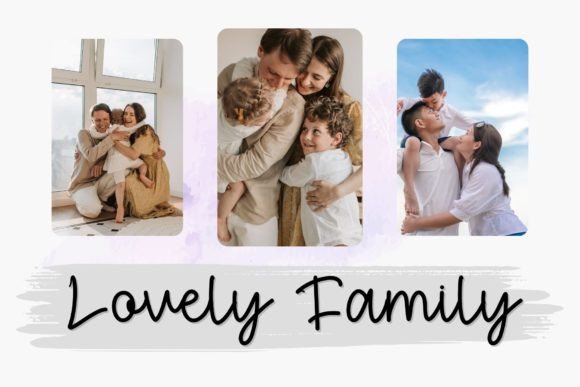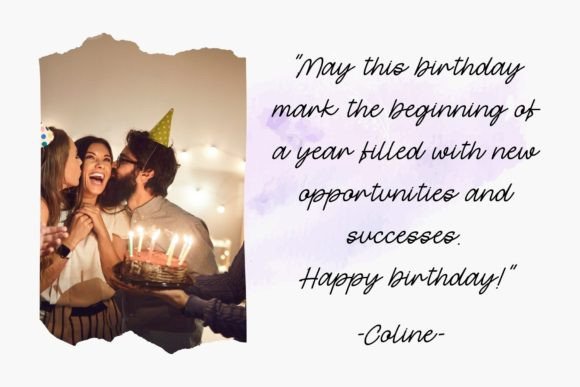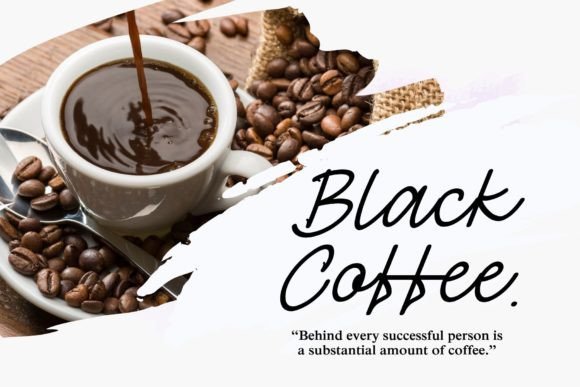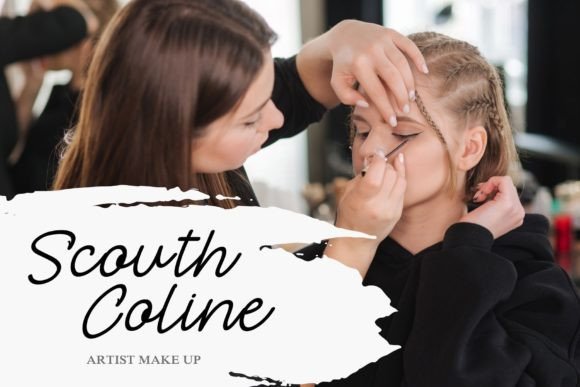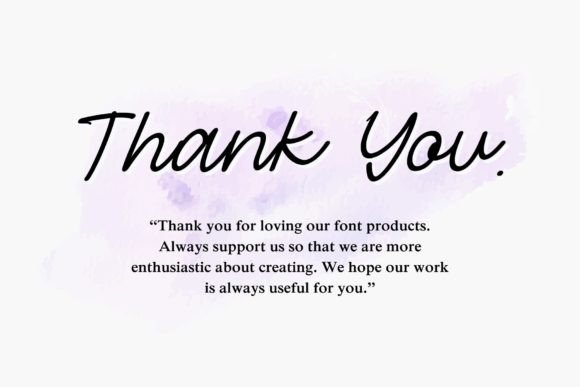
Introduction to Roslary Font
Immerse yourself in the elegant and organic charm of Roslary, a captivating handwritten font.
Perfectly capturing the beauty of freehand expression, itโs a versatile choice that enriches every design canvas with its natural sophistication Whether your creativity leads you to logo design, invitations, or even impactful social media content, Roslary has the typographic finesse to fulfill your every design aspiration.
Key Features of Roslary Font
Why Choose Roslary Font?
Roslary Font offers exceptional quality and versatility, making it a valuable addition to your design toolkit. Whether you’re creating for personal projects or commercial use, Roslary Font delivers professional results.